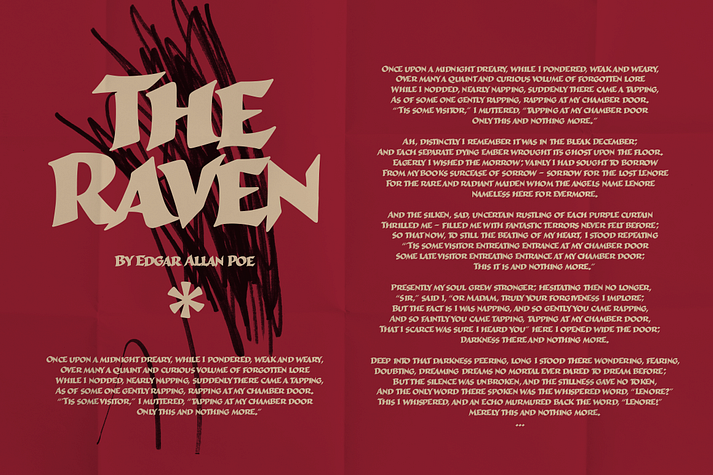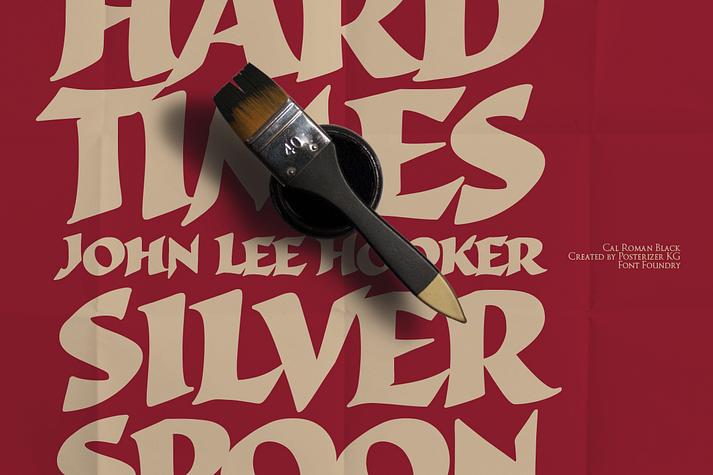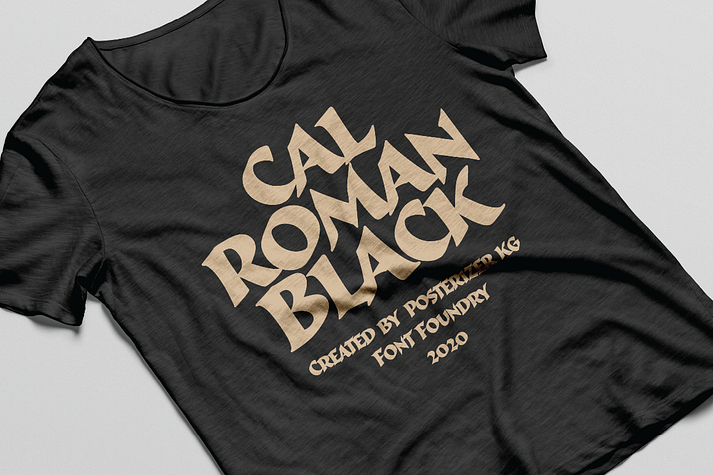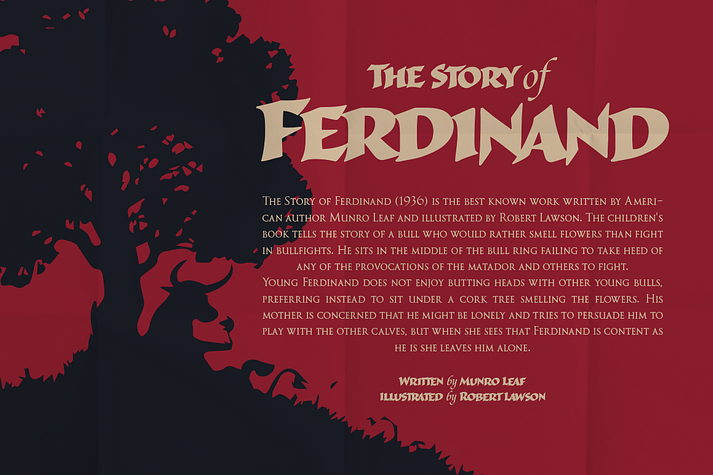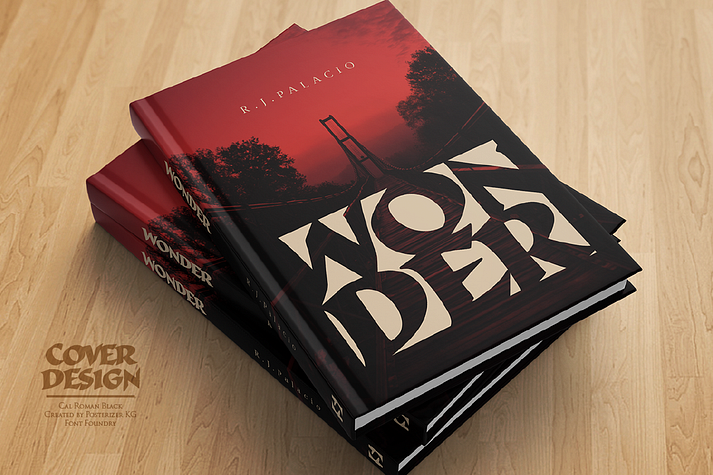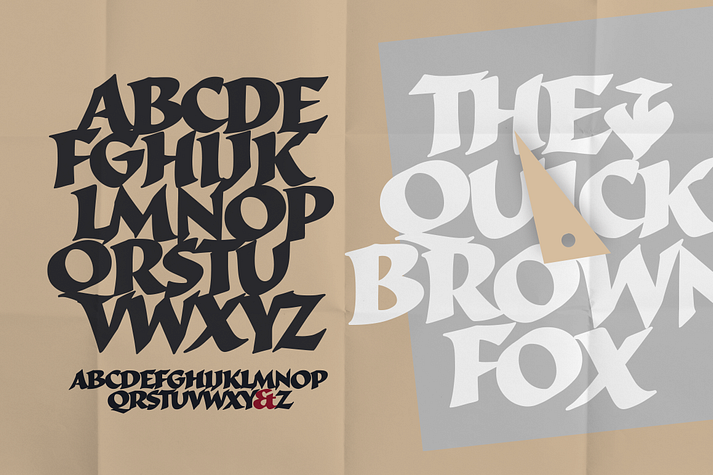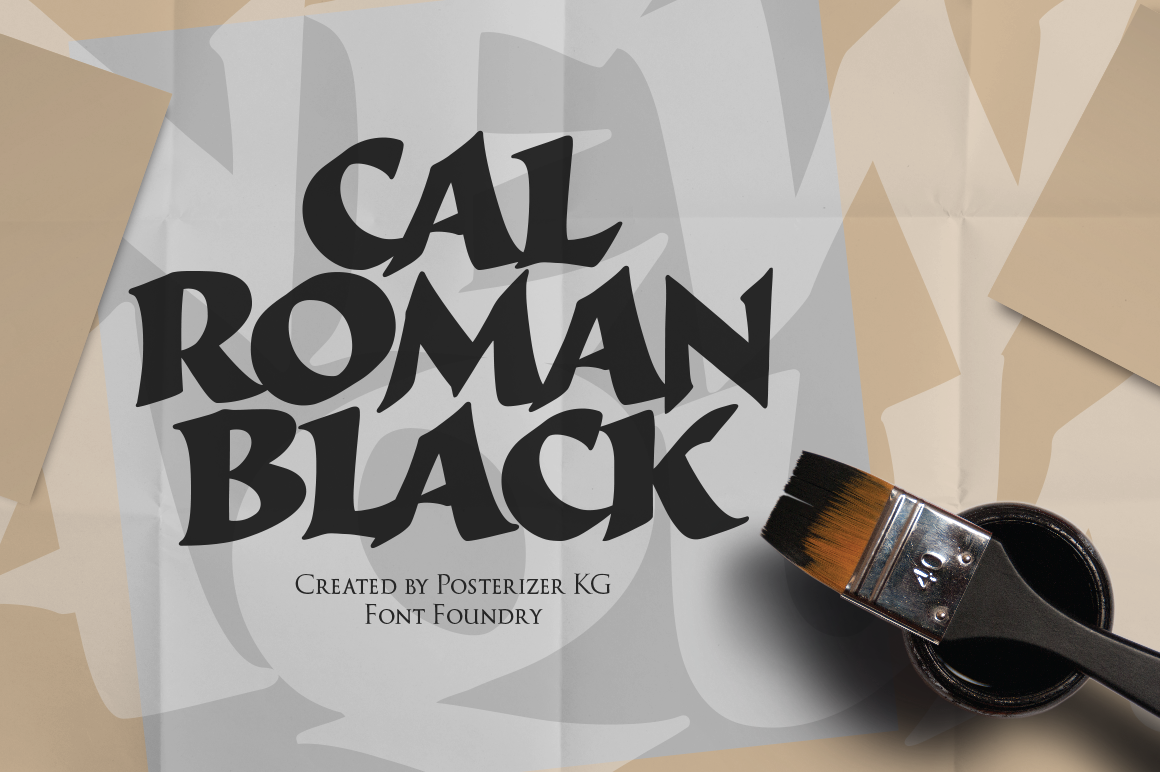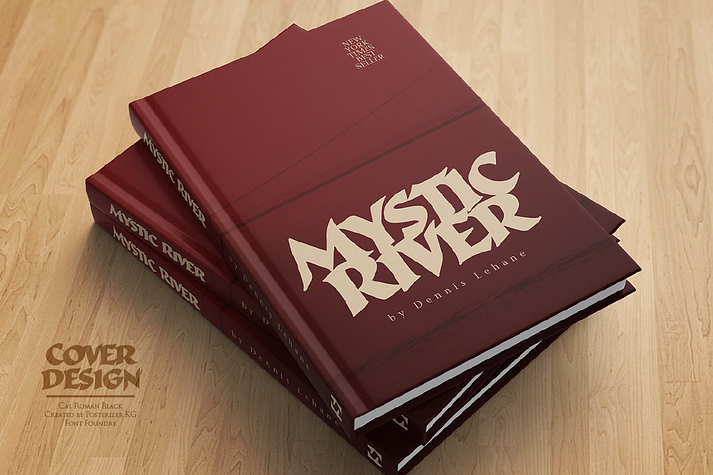
Cal Black
Cal Black is a font family published by Posterizer KG.
Cal Roman Black is one more font from the PKG “Cal” (Calligraphic) group. This time, for sketches we used a wide brush instead of a calligraphic pen. Instead of minuscule letters, there are Small Caps (which are almost the same weight as capitals). There was an intention to keep the spacing as small as possible, because of that, there is no obvious difference in the stroke thickness of the capitals and the lowercase capital letters. The difference in height is only one-third of the brush-width.
Cal Roman Black font is rhythmic, informal, dark and hefty… romantic and strong at the same time (just like Ferdinand). As such, this font is widely used in the typographic creation of shorter and closely packed text forms such as magazine headlines, brochures and book covers, t-shirt designs, logos, posters, movie spots, banners…